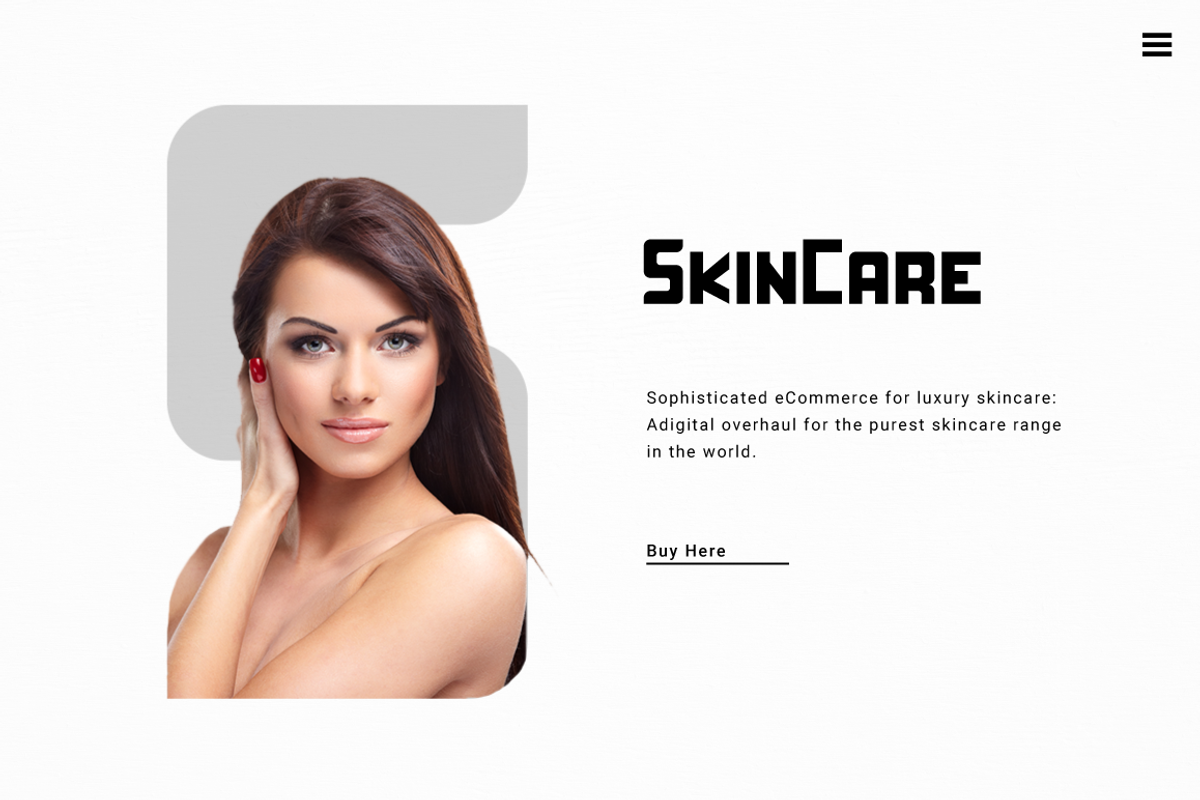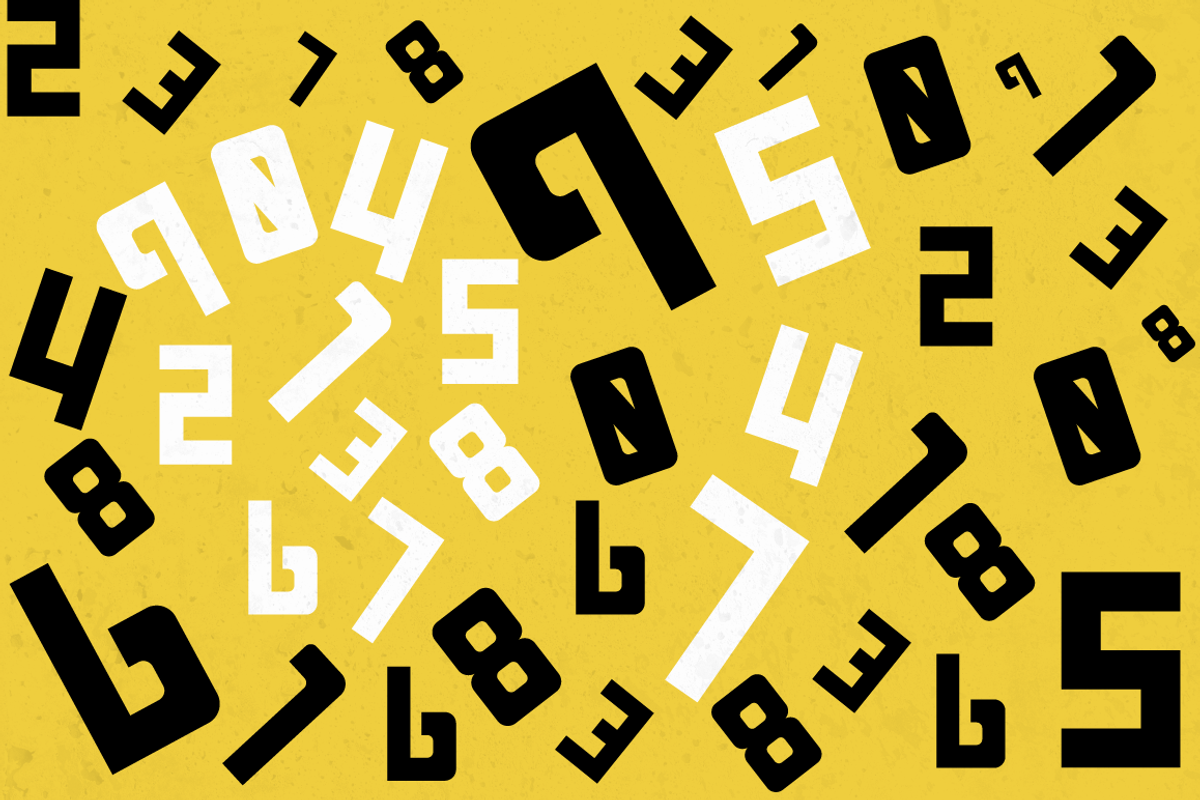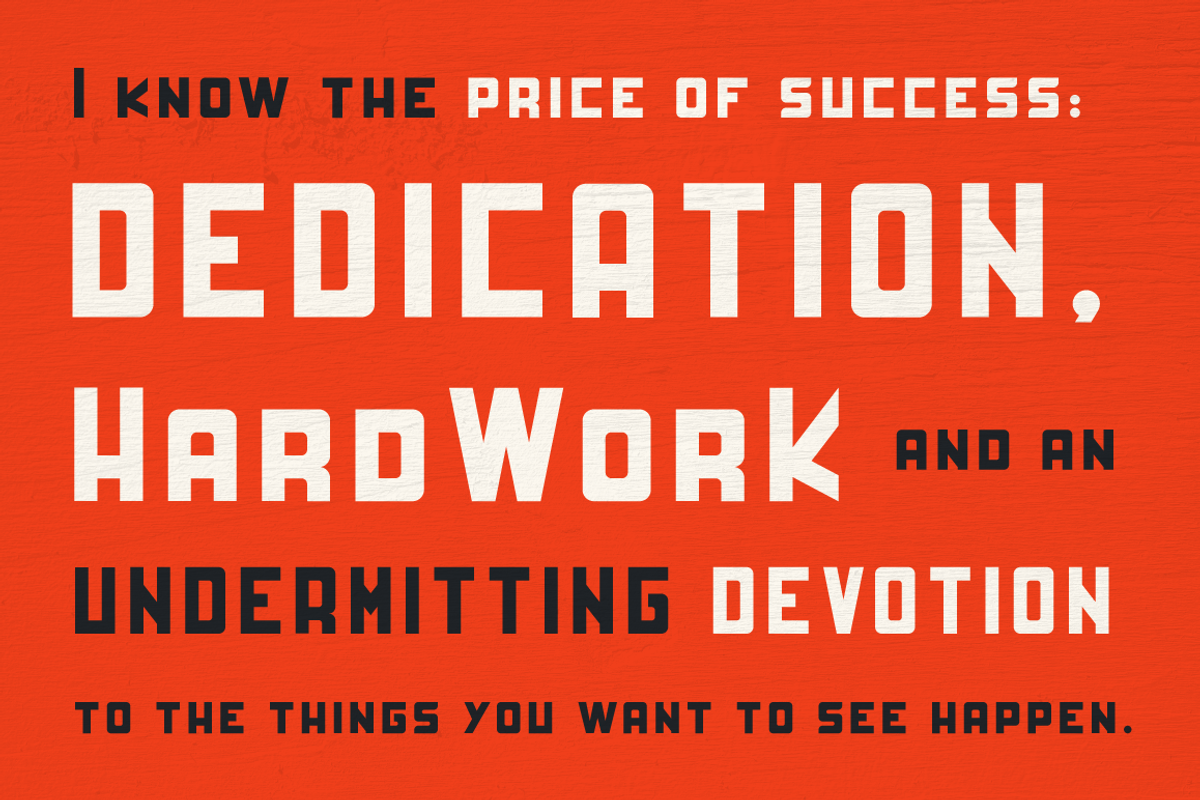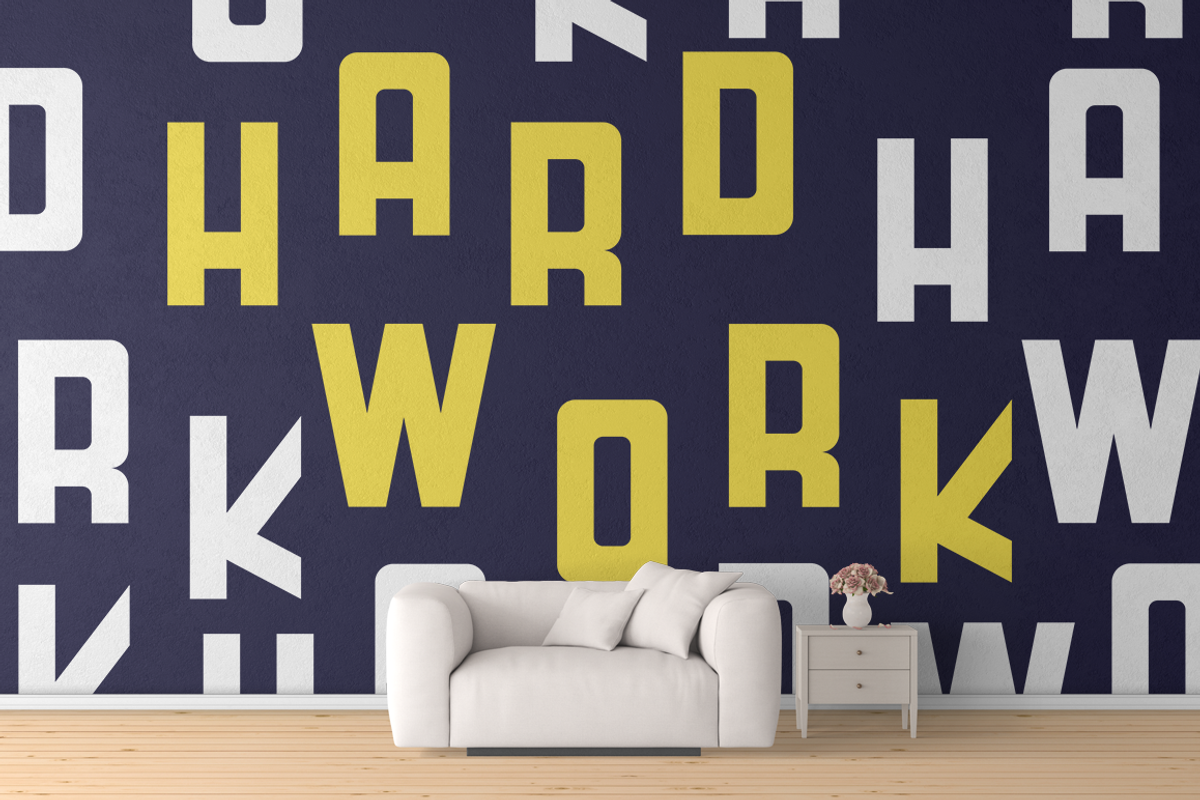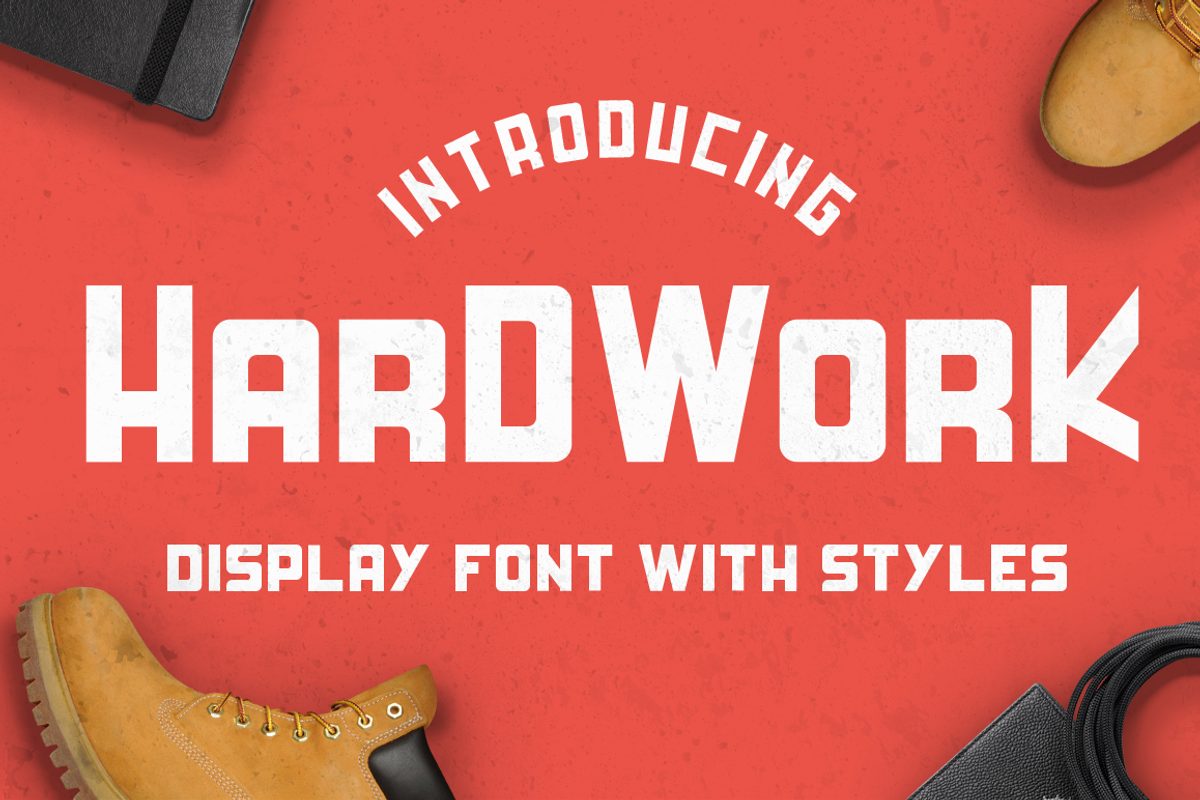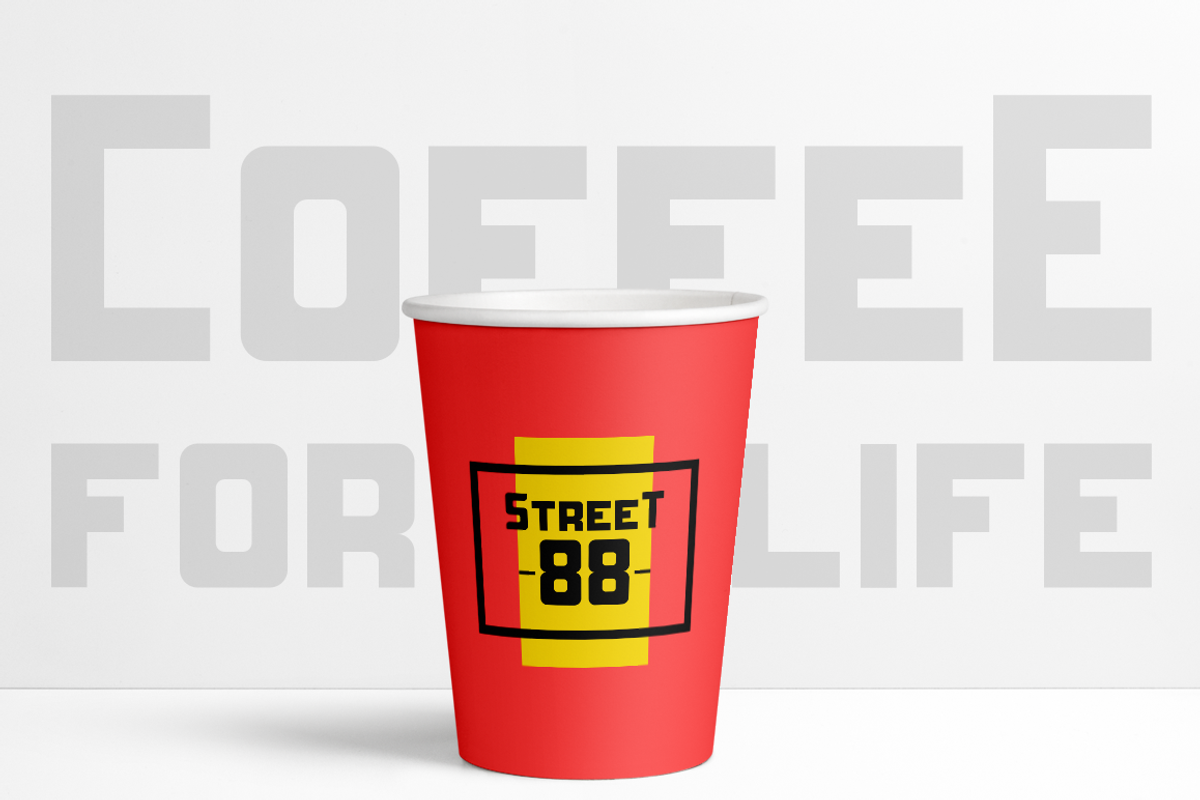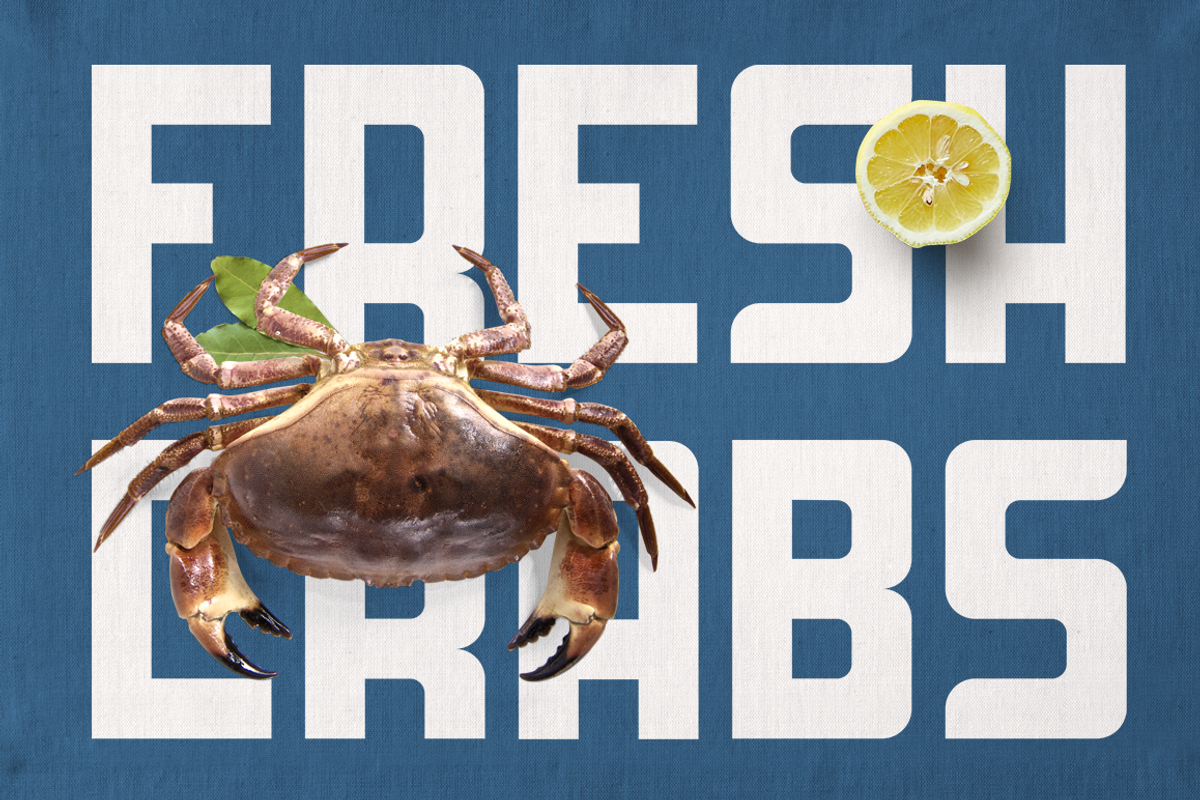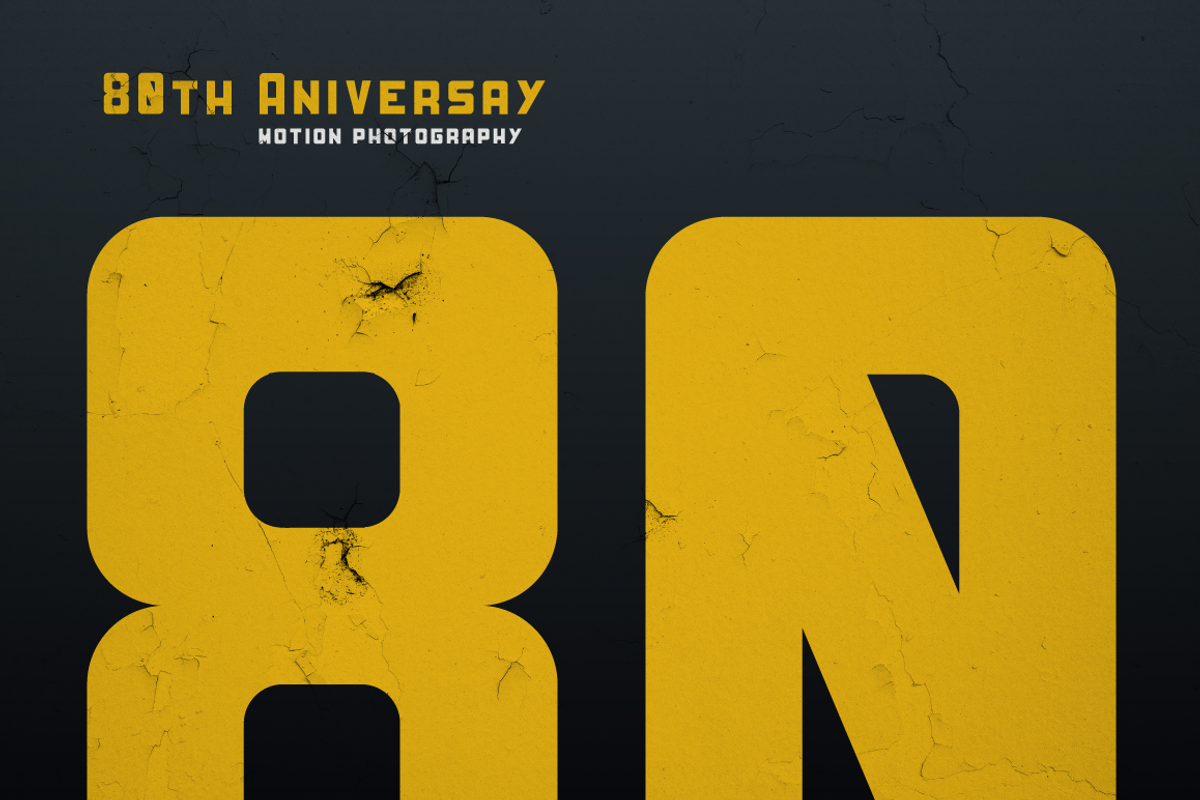
HardWork - Display Font With Styles
HardWork - Display Font With Styles by LovePowerDesigns is a font selected for branding, posters, packaging, typography.
Why HardWork - Display Font With Styles is worth a look
HardWork - Display Font With Styles by LovePowerDesigns fits naturally into Branding, posters, packaging, typography.